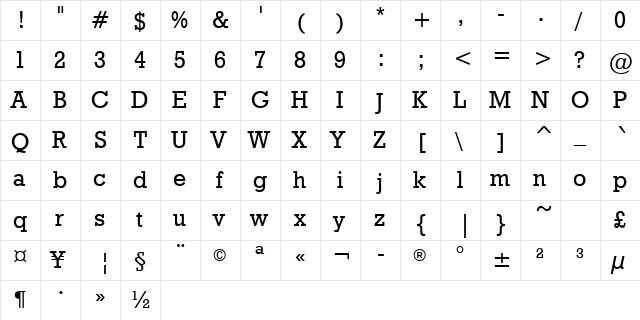
GeoSlb712Greek Md BT Medium
GeoSlb712Greek Md BT takes a measured approach to typography — its balanced proportions and neutral character make it a reliable workhorse for both digital and print work.